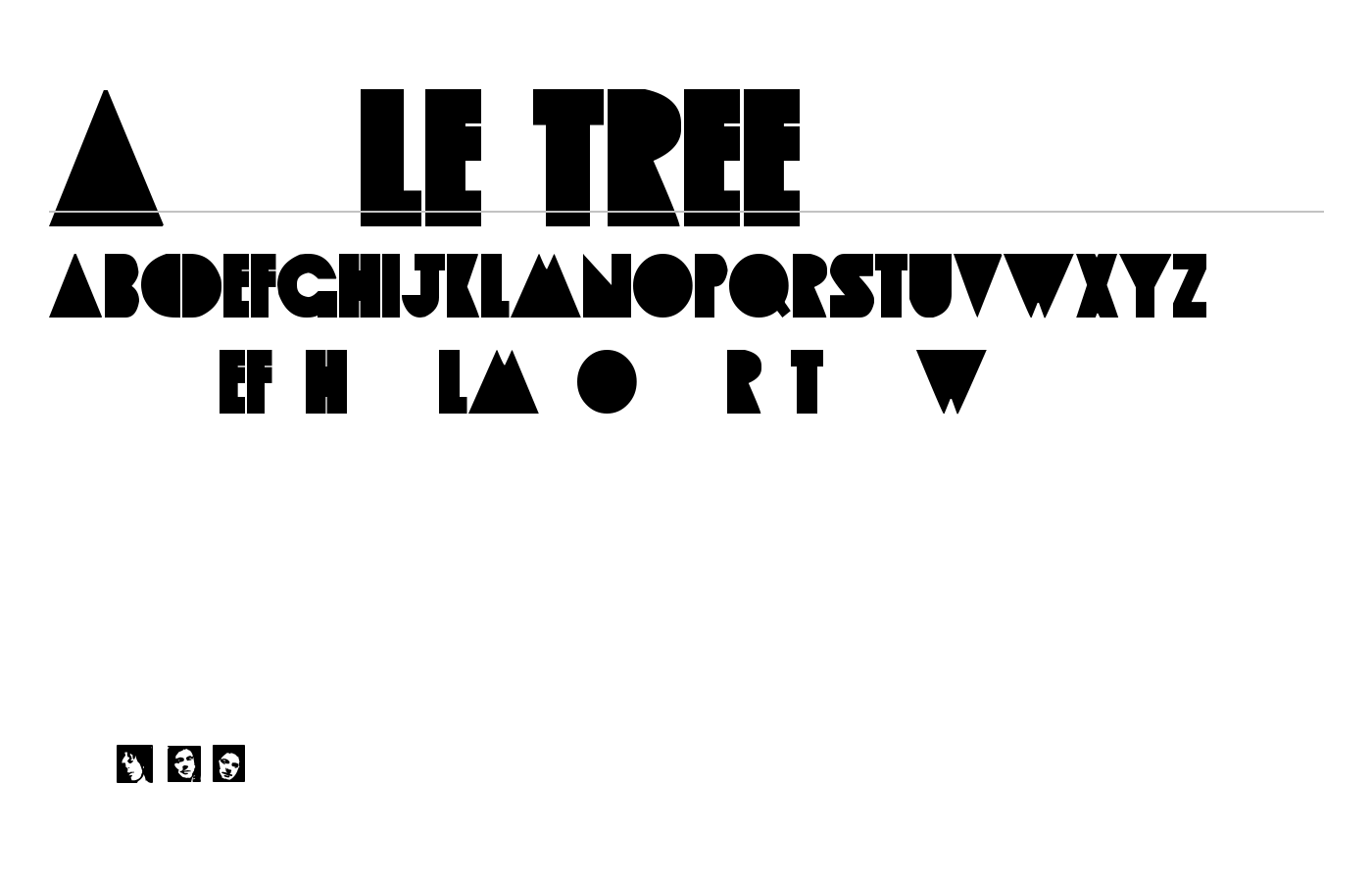
Apple Tree Font is a bold, geometric display typeface with a strong, condensed style that makes each character appear solid and striking. Its sharp angles and distinct shapes give it an edgy, modern feel, perfect for eye-catching headlines, logos, or posters that need a powerful visual impact. This font works well in creative branding and graphic design where uniqueness and attention-grabbing presence are key.
Apple Tree Font
About Apple Tree Font